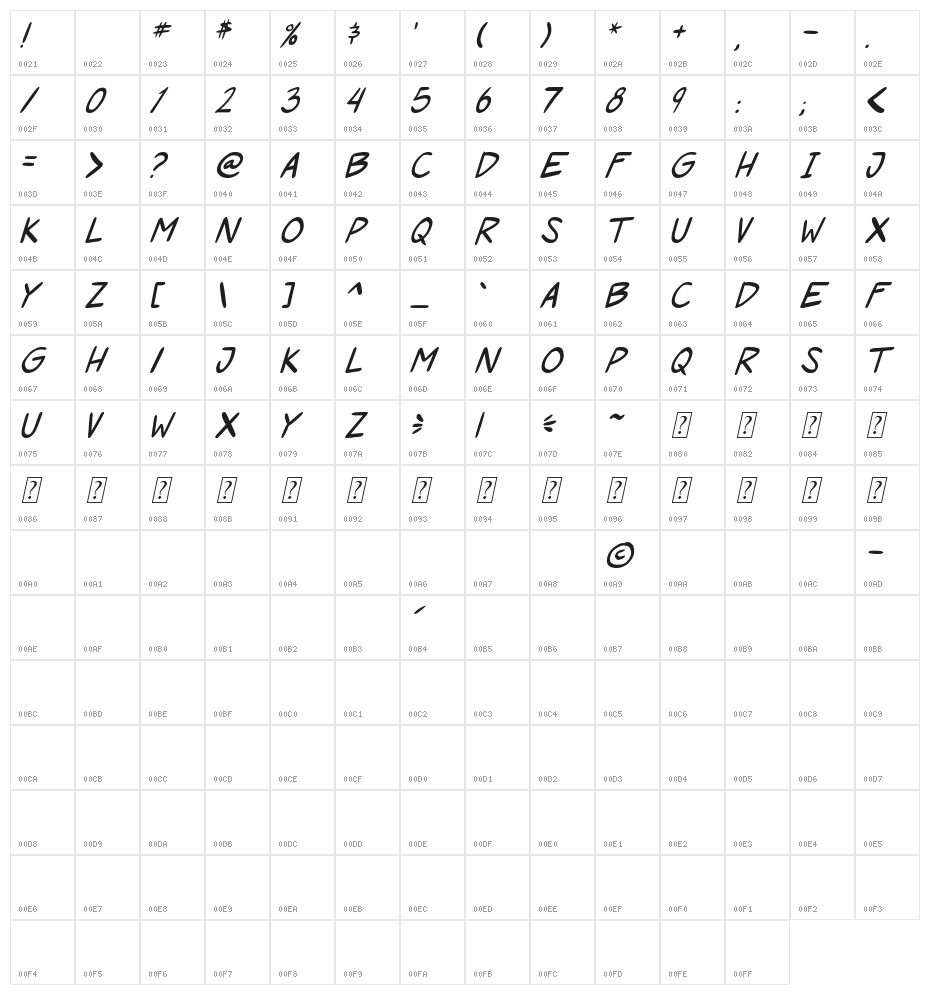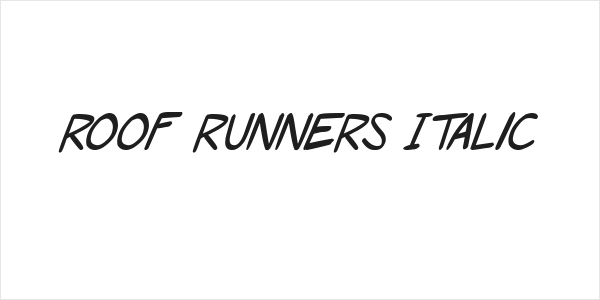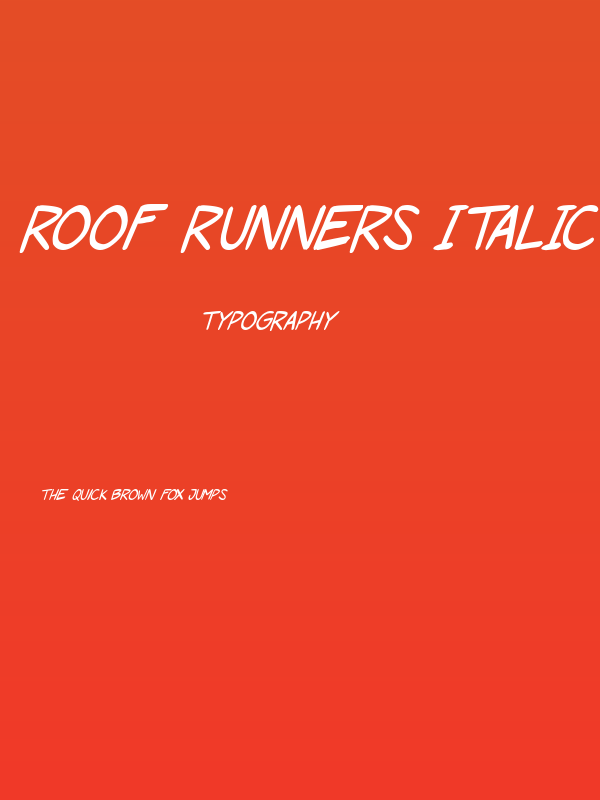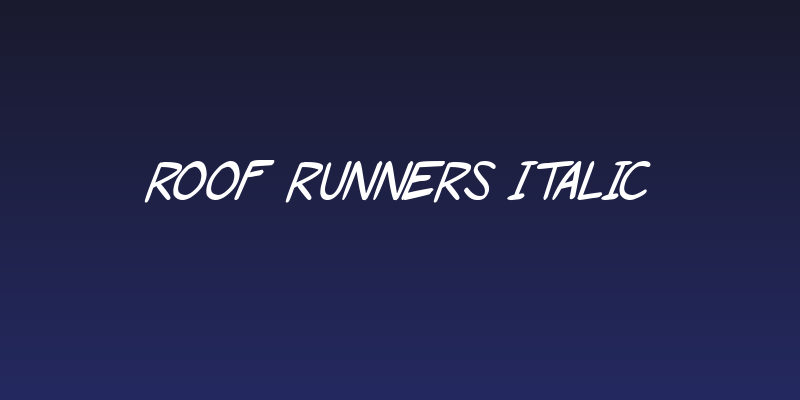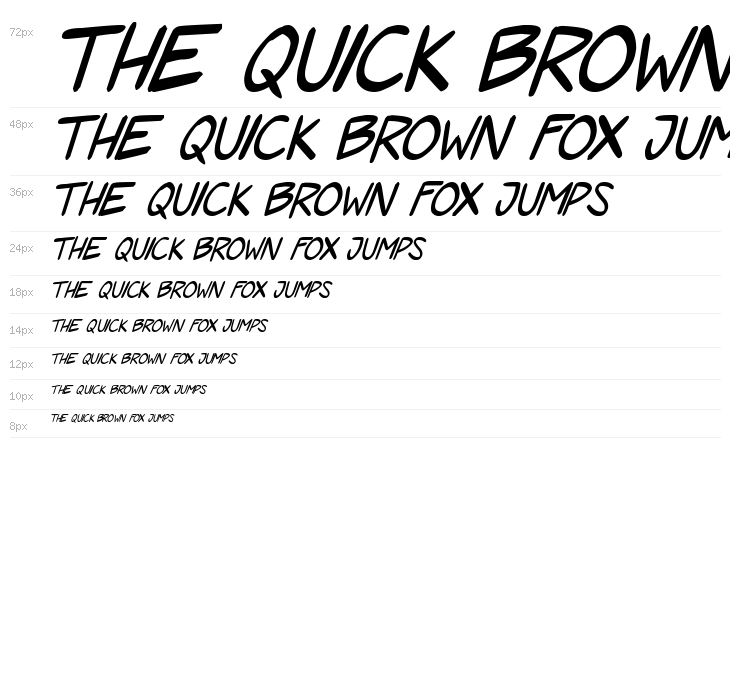
Roof runners Italic Font
Roof runners Italic Description
This font exhibits a dynamic and energetic style with a handwritten appearance. The characters are slanted, giving it an italicized look that enhances its fluidity and movement. Each letter is crafted with a smooth, continuous stroke, creating a sense of speed and agility. The uppercase and lowercase letters maintain a consistent style, with rounded edges and a slightly informal feel. The numerals and special characters complement the alphabet with similar curves and angles, ensuring uniformity across all elements. This font is ideal for projects that require a personal touch or a sense of spontaneity.